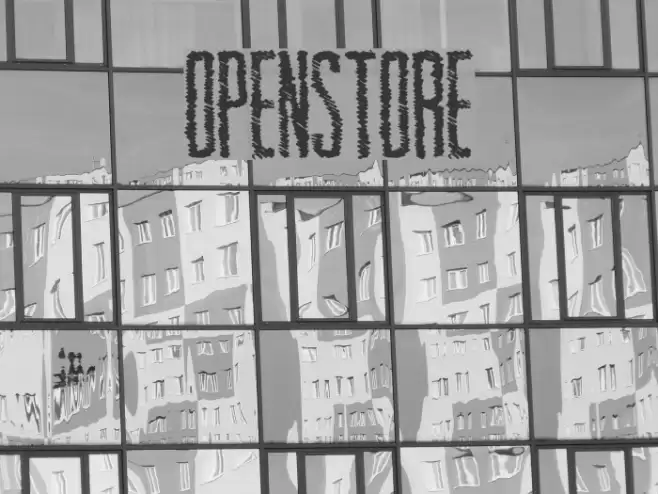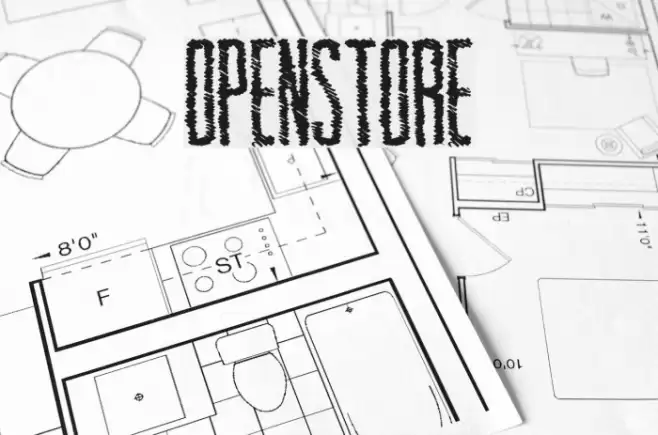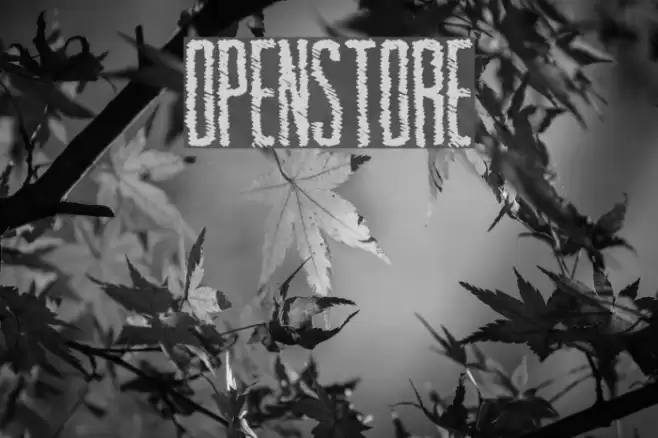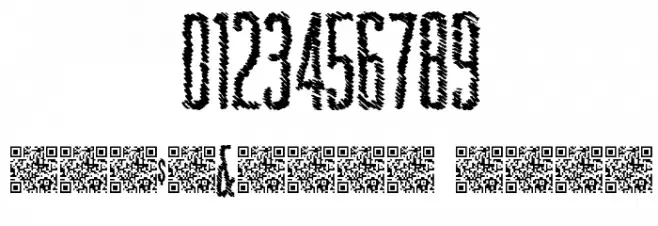
OpenStore Font
OpenStore Description
This font features a dynamic and energetic style, characterized by its textured, sketch-like appearance. The letters are bold and slightly elongated, giving them a striking presence. The irregular, hand-drawn strokes create a sense of movement and spontaneity, making it ideal for projects that require a bold statement. The uppercase and lowercase letters maintain a consistent style, while the numerals and special characters complement the overall aesthetic. This font is perfect for creative designs that aim to capture attention and convey a sense of artistic flair.
A bold, textured font with a sketch-like, dynamic appearance from Distorted Eroded fonts.
- Proposed Projects: Ideal for posters, album covers, branding, and artistic projects that require a bold and creative touch.